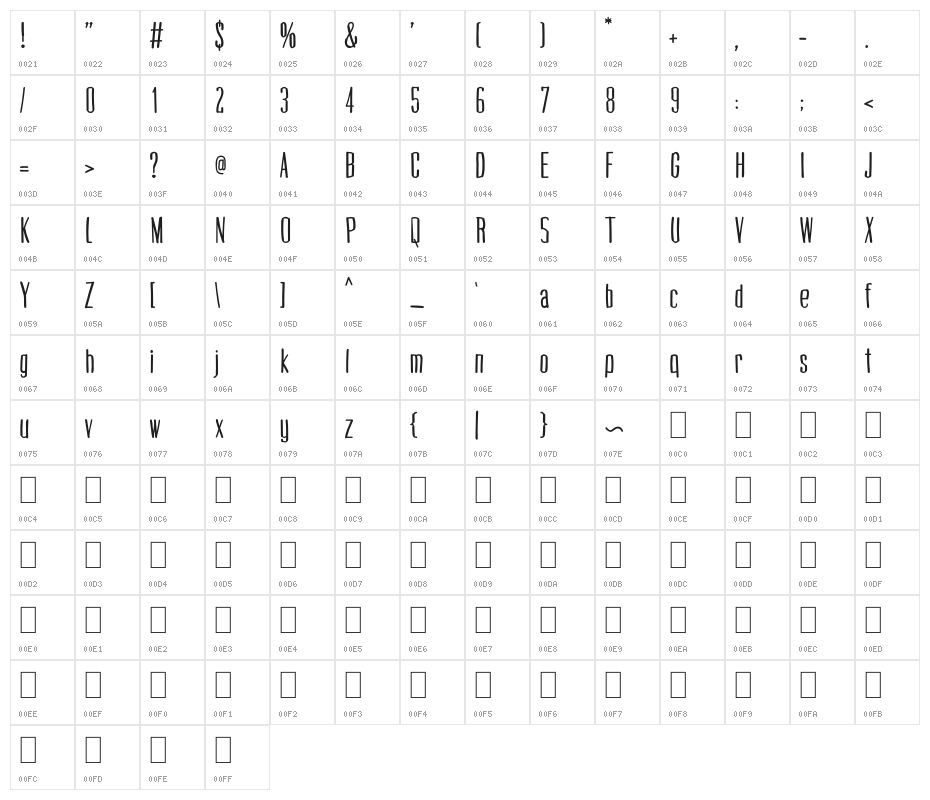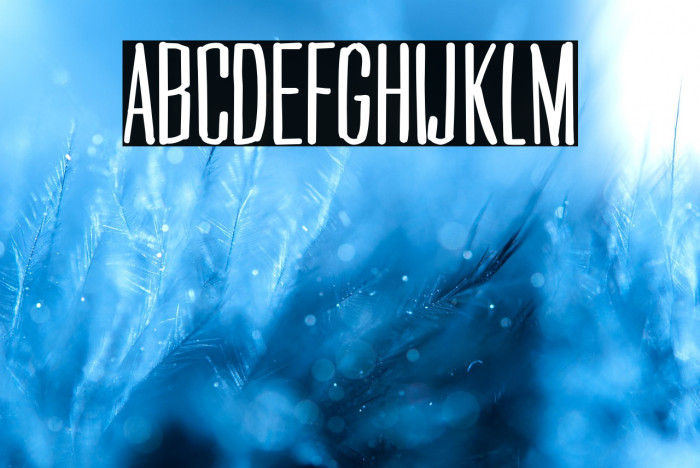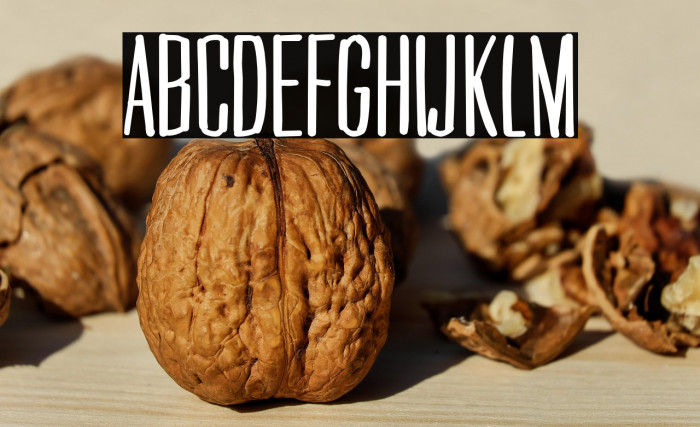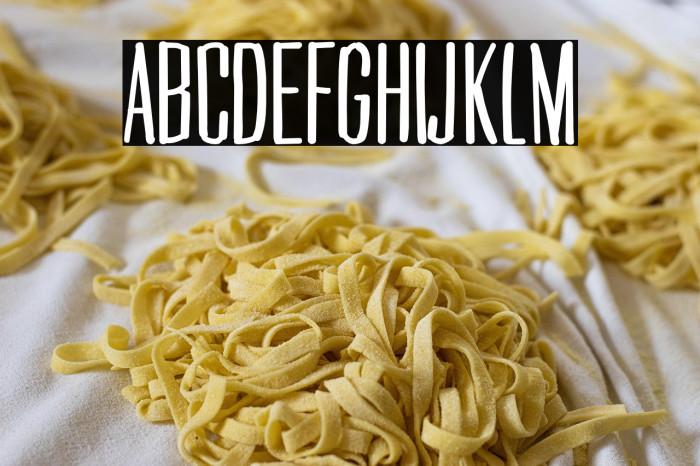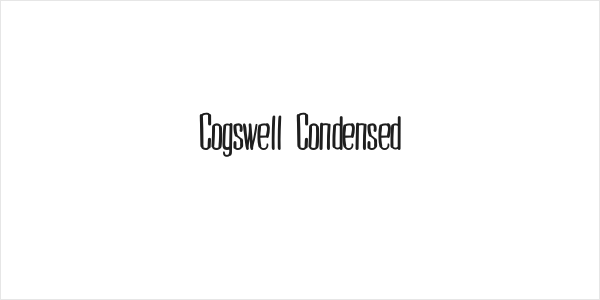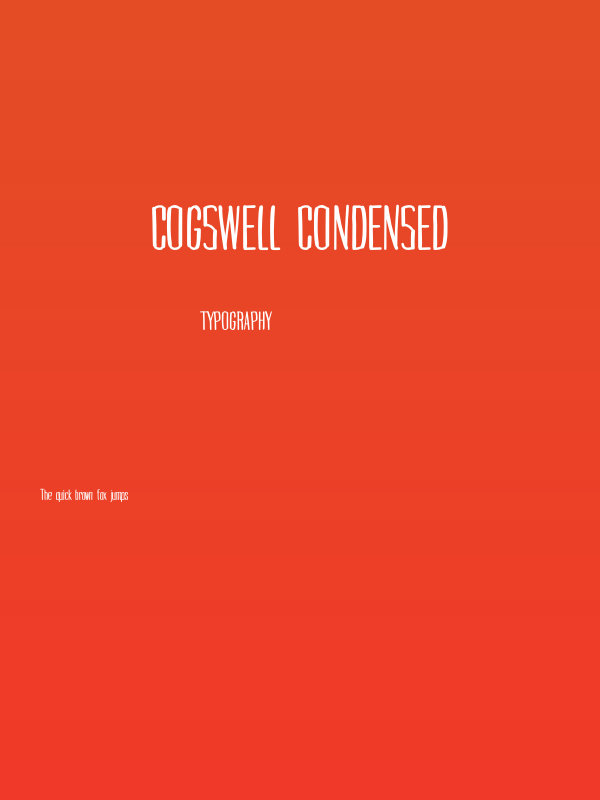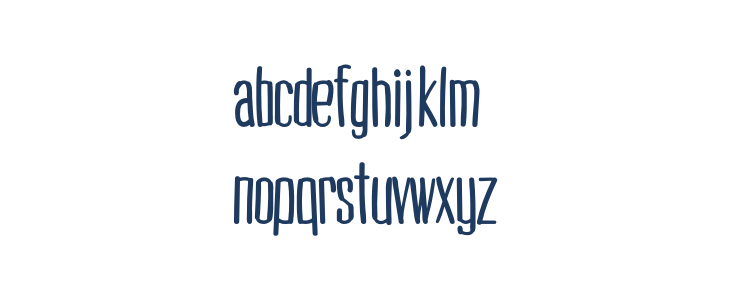
Cogswell Condensed Font
This font features a condensed and elongated style with a playful yet structured appearance. The uppercase letters are tall and narrow, giving a sense of height and elegance, while the lowercase letters maintain a consistent flow with rounded edges. The numbers are similarly elongated, providing a cohesive look across all characters. The special characters are uniquely styled to match the overall aesthetic, making them stand out without disrupting the visual harmony. This font's distinctive character shapes and spacing make it ideal for creating eye-catching designs.